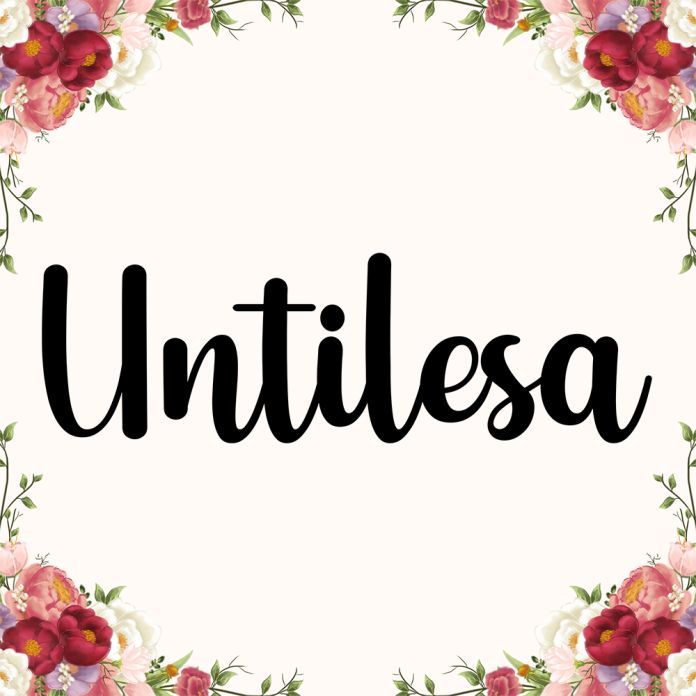
Untilesa is a lovely and timeless handwritten font. It is the best choice for creating eye catching logos, branding and quotes. Every letter has a unique and beautiful touch, which will make your design come alive!